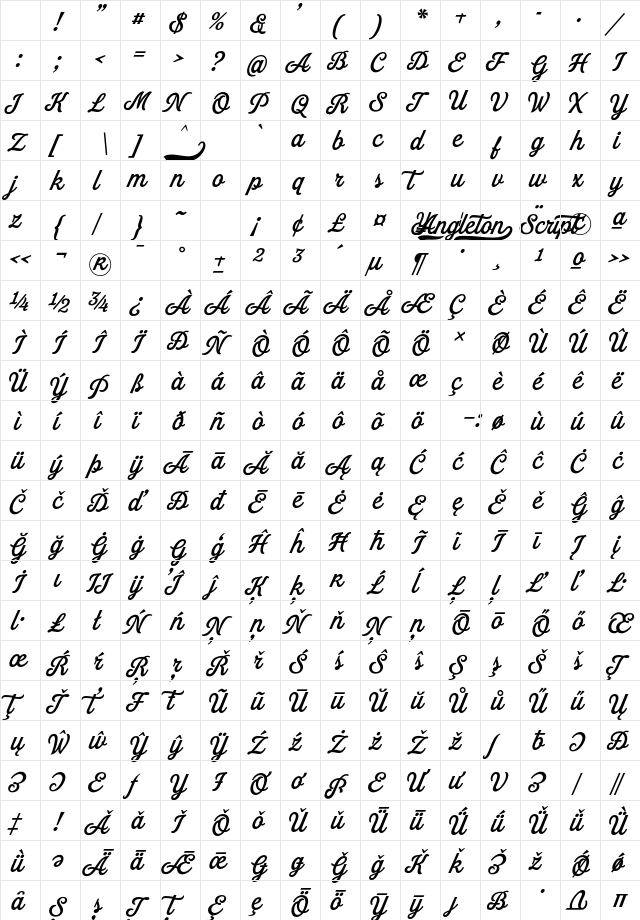
Complete Angleton Script PERSONAL USE Regular glyph index. Displaying only characters natively supported by Angleton Script PERSONAL USE Regular font.
Angleton Script PERSONAL USE flows with the natural rhythm of handwritten lettering, making it ideal for designs that call for warmth and personal expression.
Font Pairing: Combine Angleton Script PERSONAL USE with a simple geometric sans for maximum contrast - the tension between flowing curves and clean structure is a classic typographic pairing.
Pro Tip: Use Angleton Script PERSONAL USE for short runs of text - names, titles, or taglines. Extended body copy in script faces tires the eye quickly.